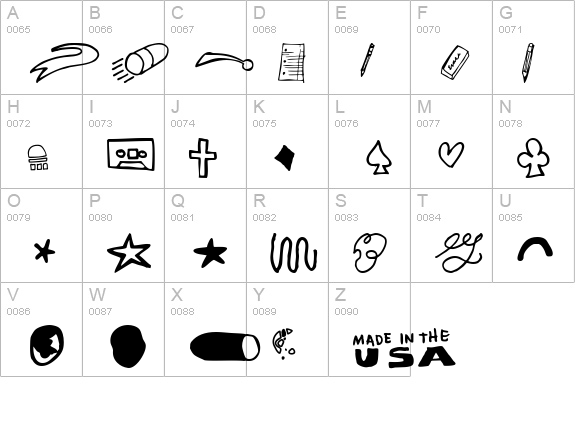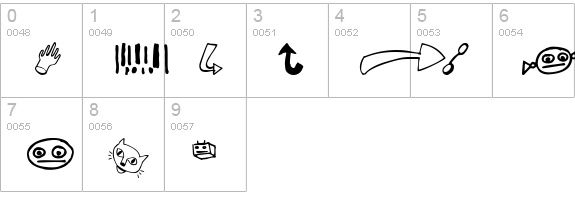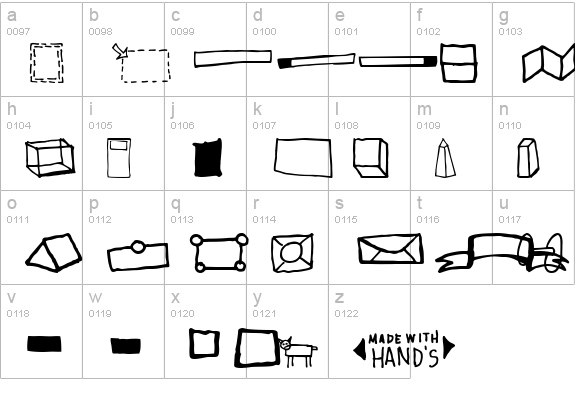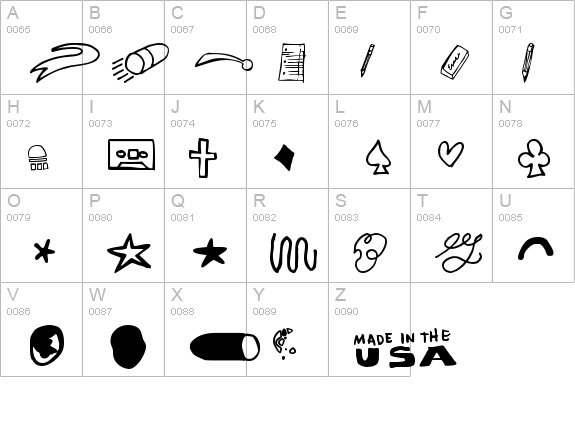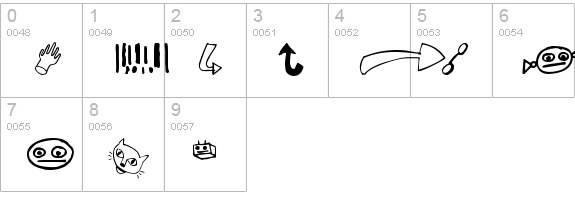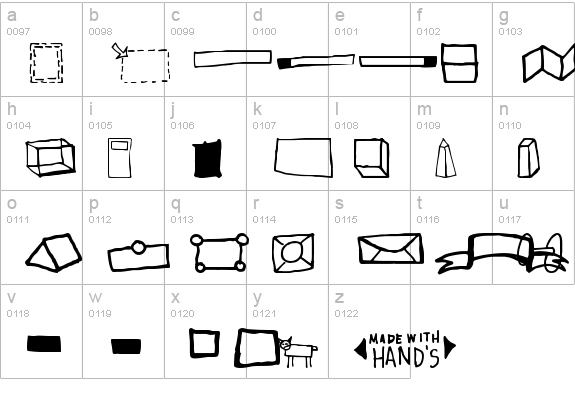
Cinahand Dingbats Font Details
Cinahand Dingbats font is a whimsical and creative typeface that is perfect for adding a touch of fun and personality to your designs. This unique font features a collection of decorative symbols and icons that can be used to enhance various projects such as invitations, posters, and more. With its playful and eye-catching design, Cinahand Dingbats font is sure to make your creations stand out. The best part is that Cinahand Dingbats font is available for free download at FontsMarket.com. Whether you're a designer looking to add some flair to your work or just someone who enjoys experimenting with different fonts, Cinahand Dingbats font is a great choice. Download it today and let your creativity shine!